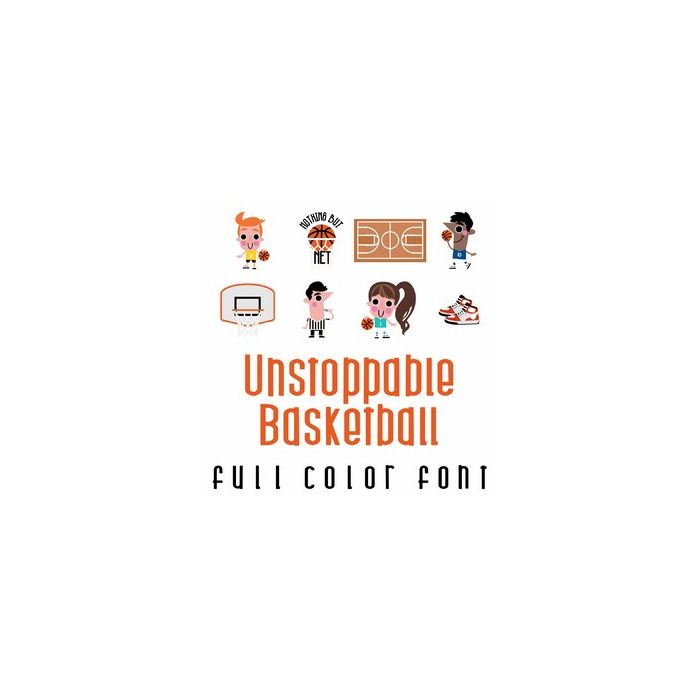
This adorable full-color doodlebat font features 26 basketball players and iconic images. Perfect for cards, crafts, gifts, decor, planner stickers, scrapbook pages and more!